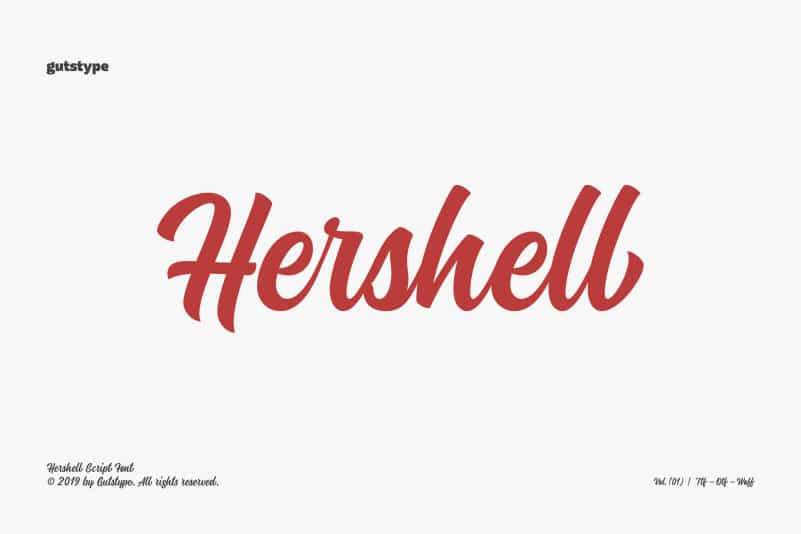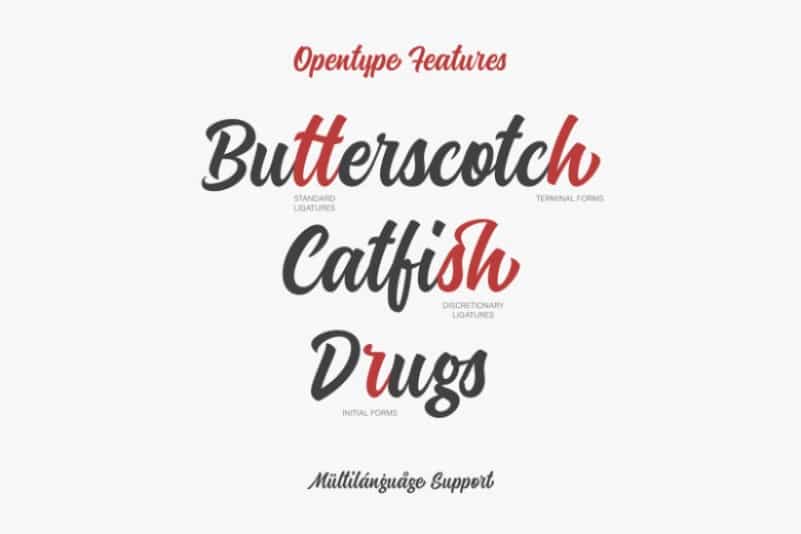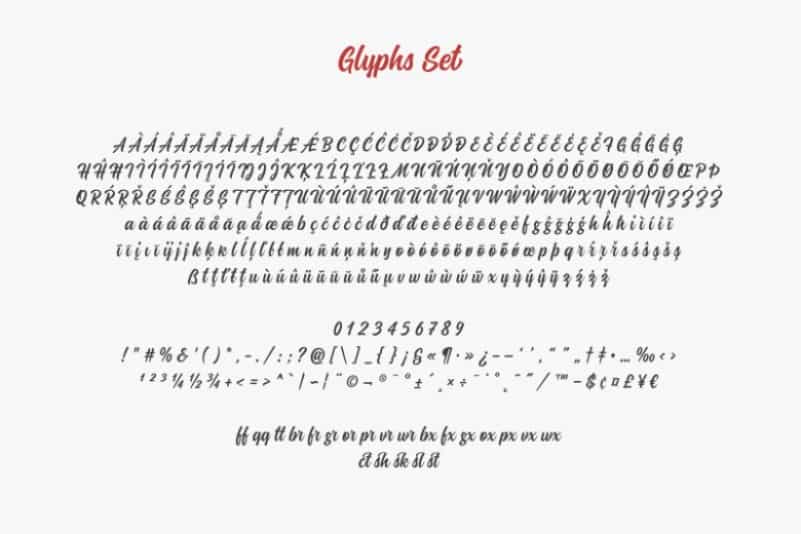
Discover Hershell Script Font, part of the Calligraphy collection—a versatile and unique font perfect for adding a personal touch to your projects. Download it for free and enjoy crafting designs with style, from invitations to social media posts. This font is available exclusively for personal use, giving you the freedom to create without limits. Unlock your creativity with Hershell Script Font today!
Hershell script fonts are the ideal font pair for branding, magazines, posters, stickers, signs and other purposes.